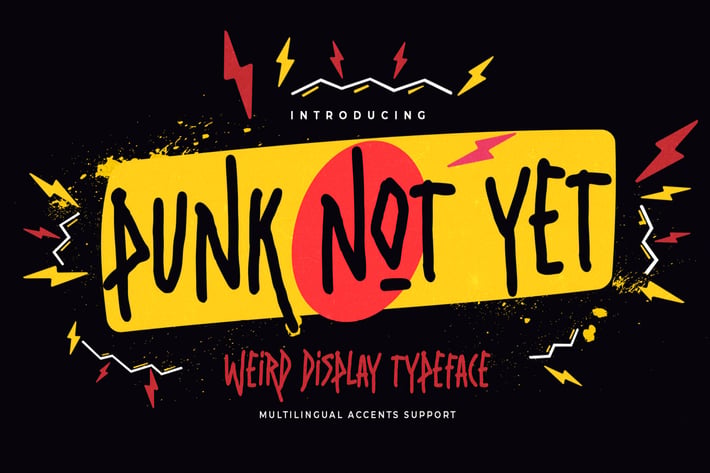
Punk Not Yet - Weird Display Typeface
Introducing Punk Not Yet – Weird Display Typeface is Handmade Font is an Authentic Style and classy style, this font is great for your creative projects such as watermark on photography, and perfect for logos & branding, photography, invitation, watermark, advertisements, product designs, stationery, wedding designs, label, product packaging, special events or anything that need handwriting taste.
Punk Not Yet a natural handwritten feel. This handmade font will make your design has a beautiful natural touch for each detail. It is perfect for any design project as an Invitation, logo, book cover, craft, or any design purposes.